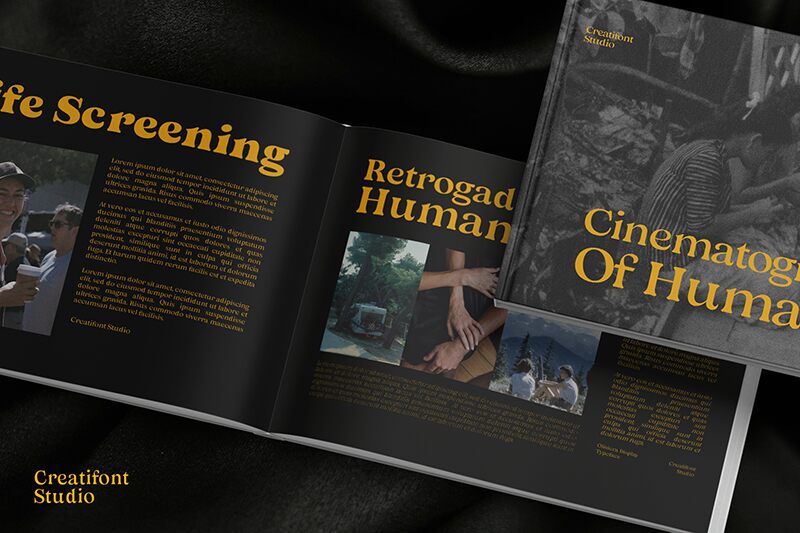
CF Oliviera Demo Bold Italic
CF Oliviera Bold Italic font designed by Creatifont Studios is a harmonious balance of flowing sophistication and bold appearance. The classic influence of this antique styled serif font adds an artistic shine to projects. Its decorative glyphs are elegant, charming, and perfectly suitable for displaying important or attention-catching text in both digital and printed forms.
This free serif font has the potential to enhance wedding invitation designs, greeting cards, logo concepts, book covers, product packaging, business name presentations, menus design ideas, or social media platforms. It can also improve background images whether used in traditional printed publications or for modern day digital blogs and sites.